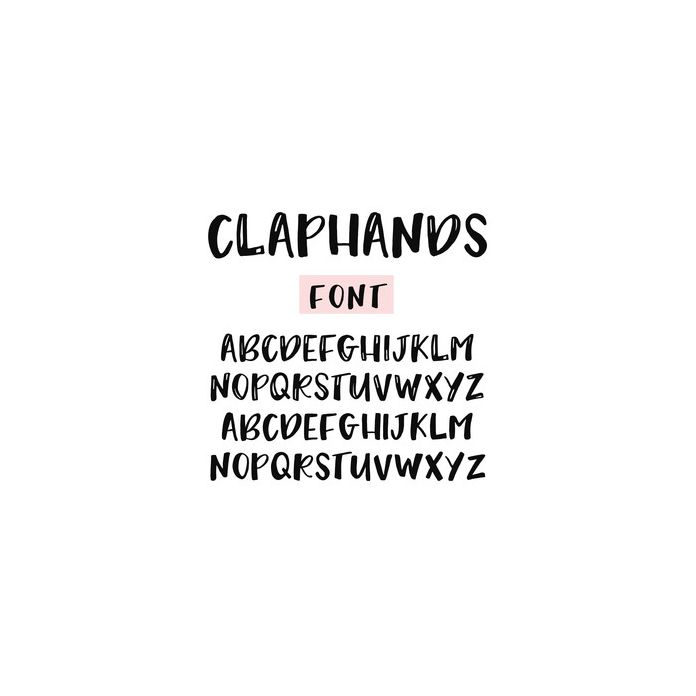
Meet Claphands font by Angie Makes. Claphands is a chunky, uppercase font with both solid and semi-solid characters. Type lowercase letters for totally solid characters and uppercase letters for semi-solid characters. Numbers, punctuation, and international characters are included in the .OTF font file. Visit angiemakes.com for more information about fonts.